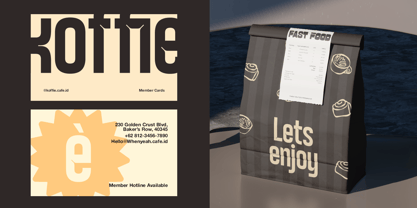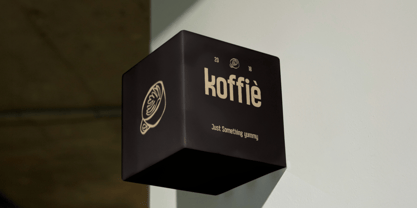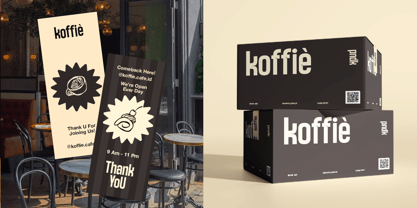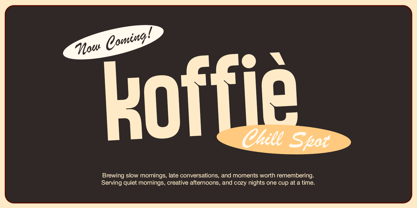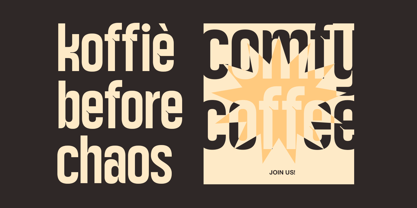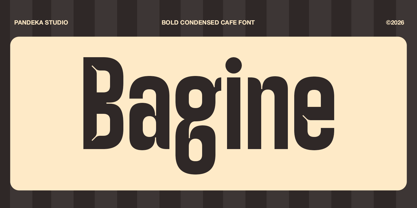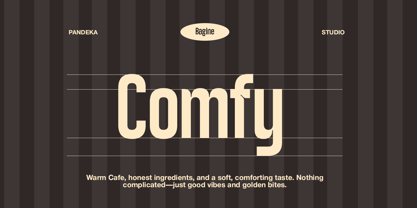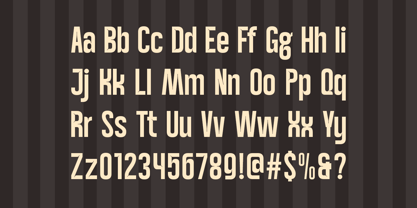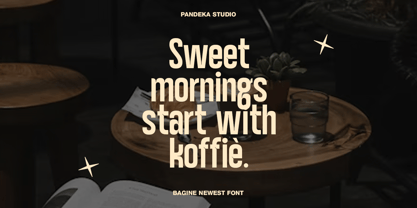
Bagine
by Pandeka Studio
The Bagine Font Family was designed by Sagara Nararya and published by Pandeka Studio. Bagine contains 1 styles. More about this family
Bagine is a bold condensed cafe font crafted to bring a warm, stylish, and modern atmosphere to your designs. Its tall letterforms and strong vintage-inspired character make it perfect for cafe branding, coffee shop logos, packaging, menu boards, posters, restaurant signage, bakery labels, and cozy lifestyle visuals. The bold condensed style creates eye-catching typography while still feeling friendly and inviting.
Designed with 1 regular style, Bagine works beautifully for branding projects that need a clean yet expressive look. Whether used for café promotions, food packaging, social media posts, product labels, or modern retro layouts, this font delivers a charming and memorable visual identity.
Designers: Sagara Nararya
Current Foundry: Pandeka Studio